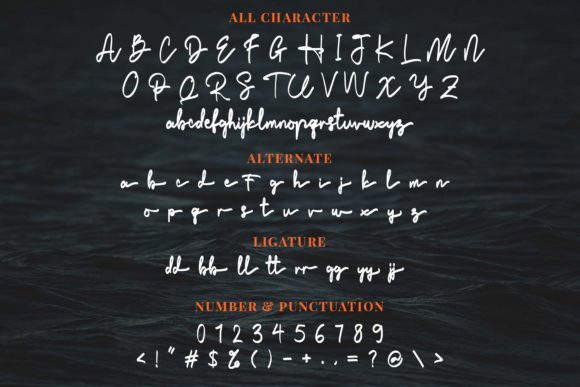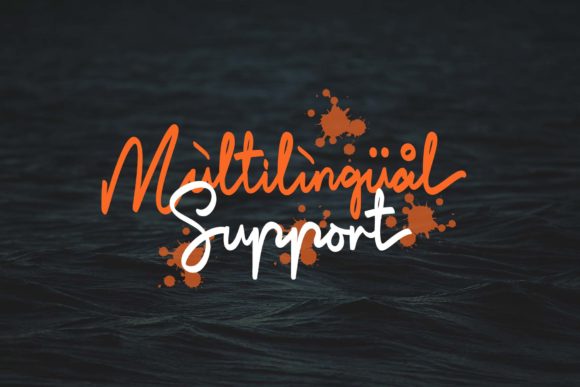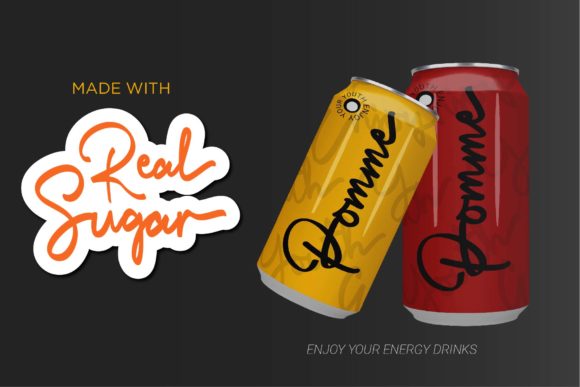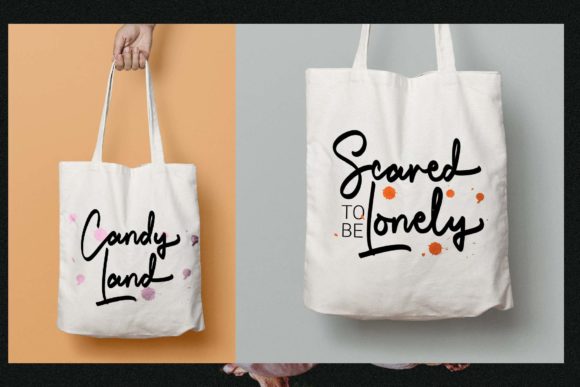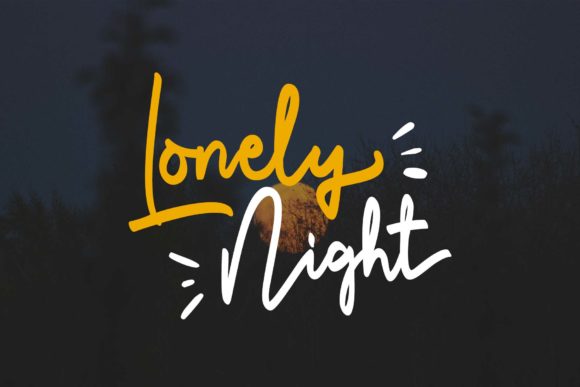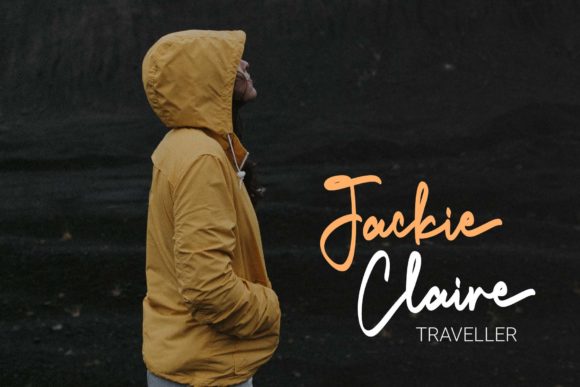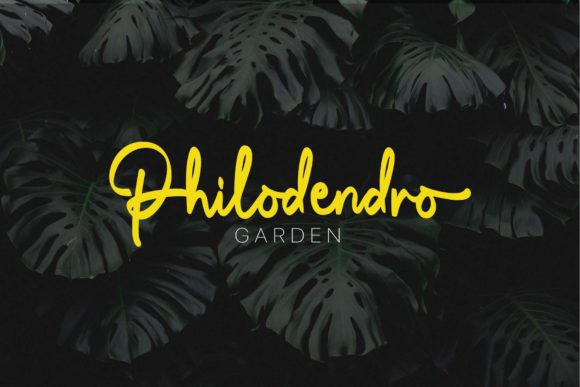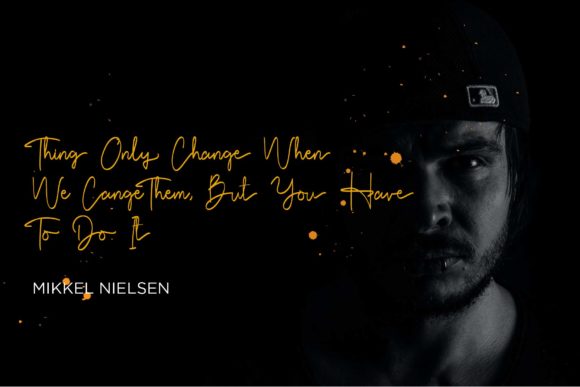
Dark Land Font
About Dark Land Font
Dark Land results out of a stunning pairing of a brush pen and pencil that makes it look incredibly endearing and authentic. Use this gorgeous and unique handwritten font to bring any DIY project to life!